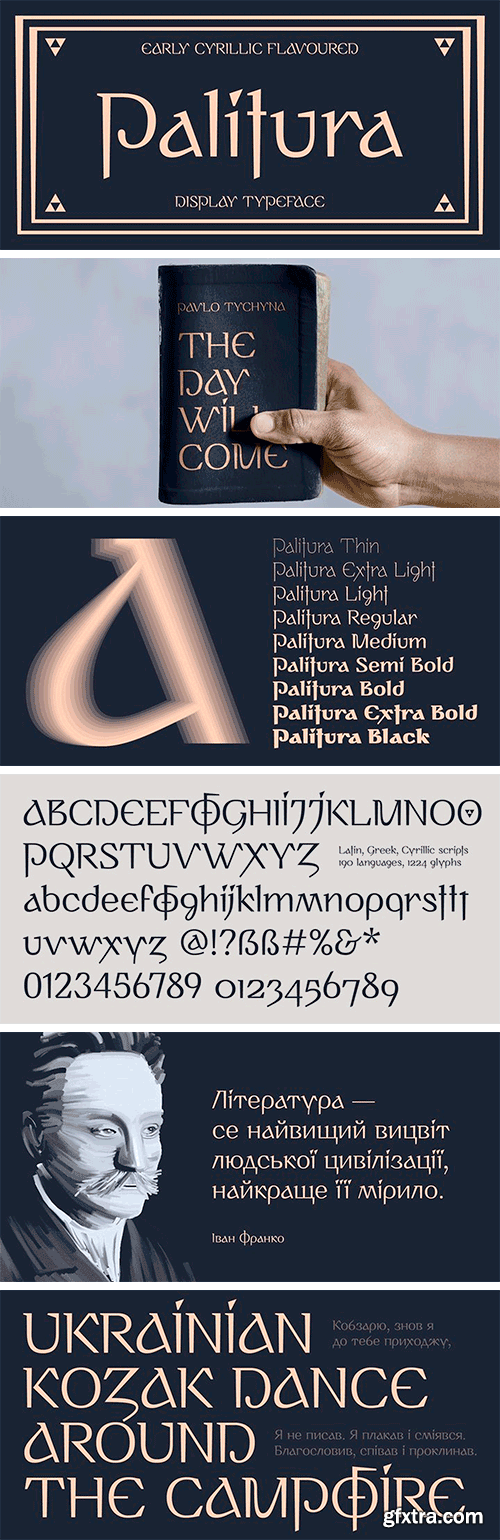
Palitura is a display typeface designed to translate Cyrillic flavor into the Latin script. Palitura means lacquered book cover in Old Ukrainian. The design of letter shapes is inspired by Early Cyrillic handwritten letters and Ukrainian patterns that are conveyed through the sharpness of form, vertical strokes that are narrower at the bottom, stylized oblique hooks at the top, and triangular accents.